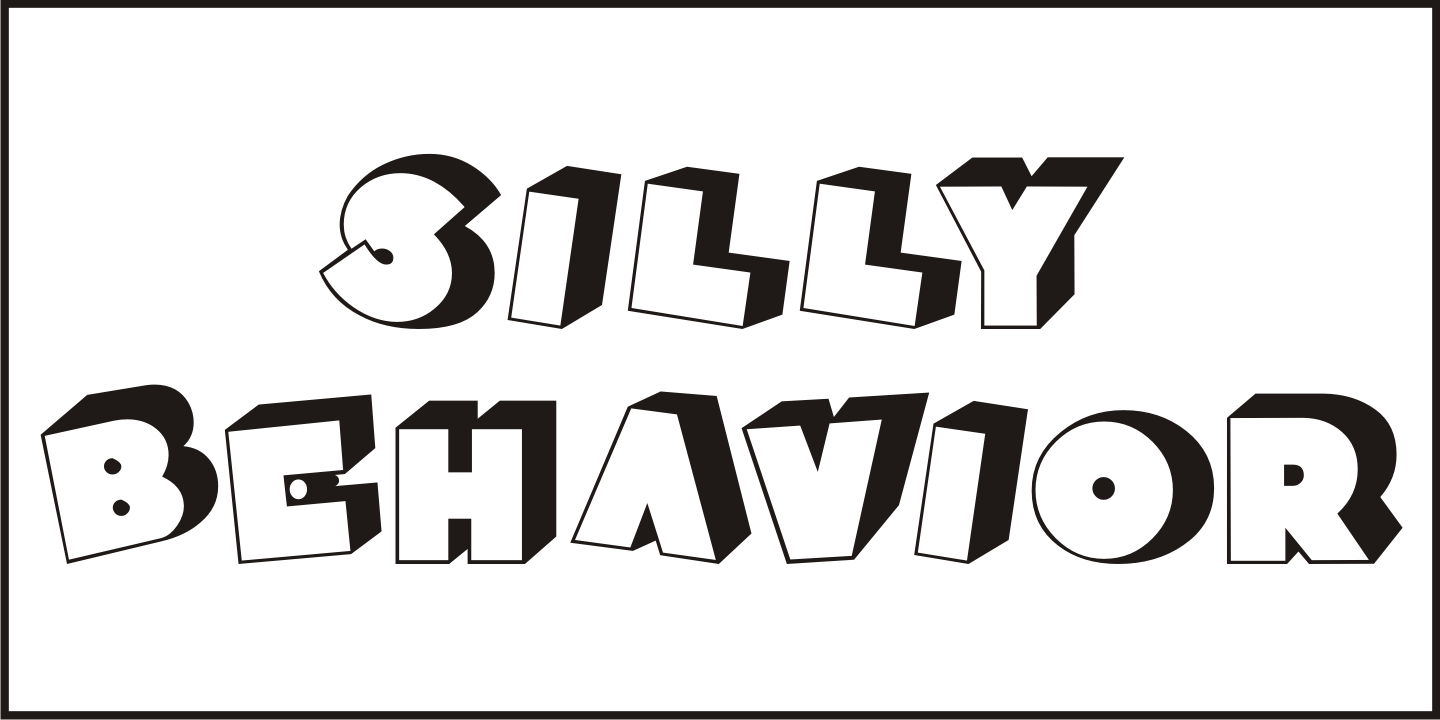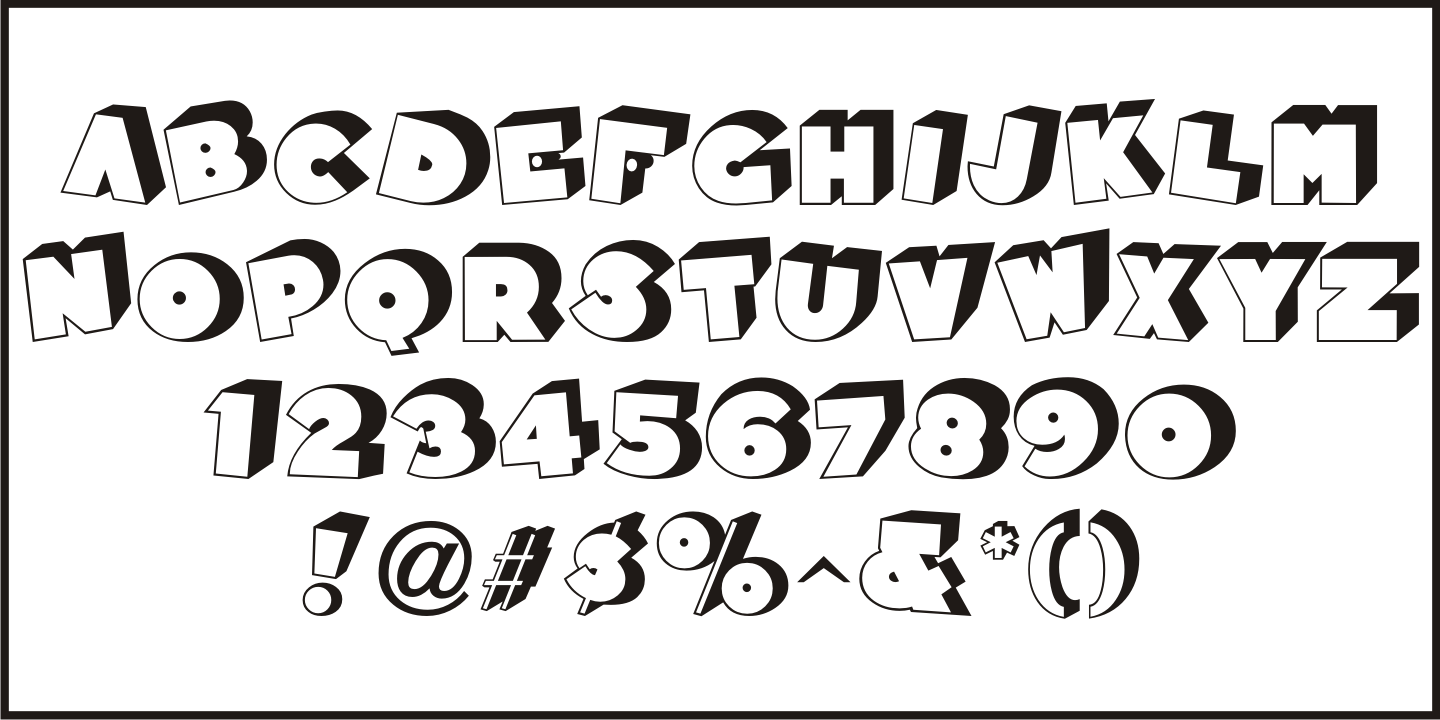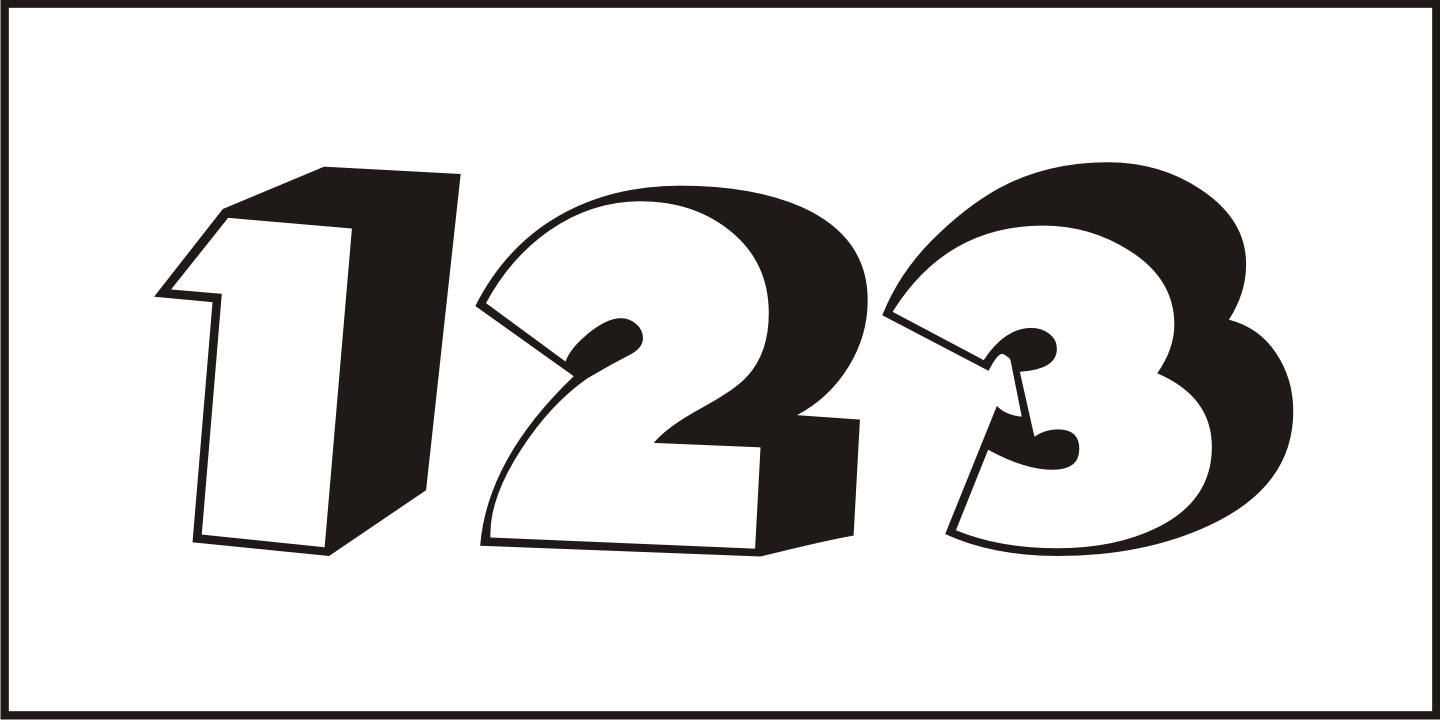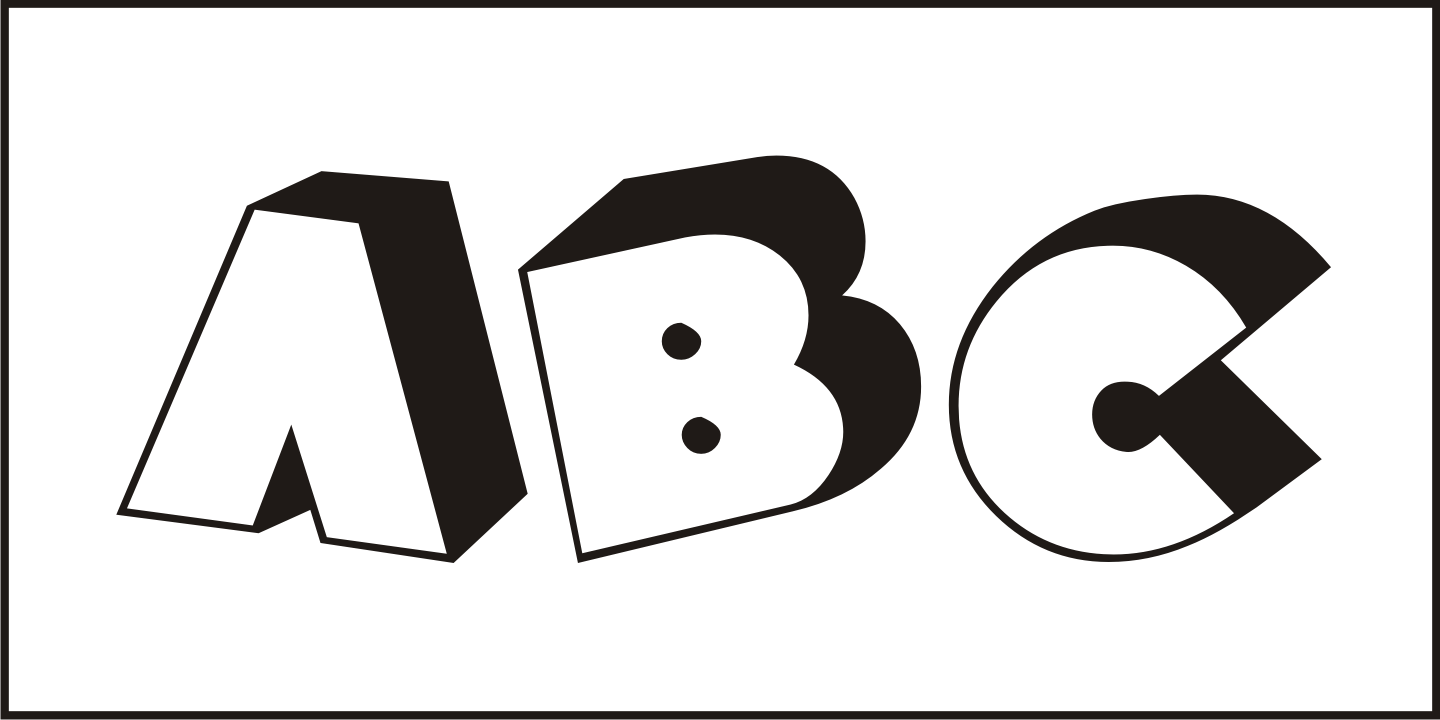
Silly Behavior
Silly Behavior JNL is based on a hand lettered alphabet found within the pages of the vintage lettering book “100 Alphabets Publicitaires” (100 Advertising Alphabets).
The fun, haphazard arrangement of the letters and numbers convey a casual approach to titling.